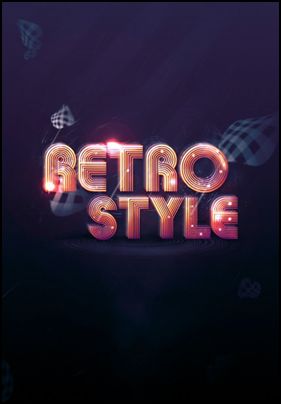
Shining Text Effect with Groovy Font
Retro nostalgia, baby! Here’s a cool tutorial that will add that disco-inspired style to your text effect with Groovy Font, thanks to the guys at PSDVault.